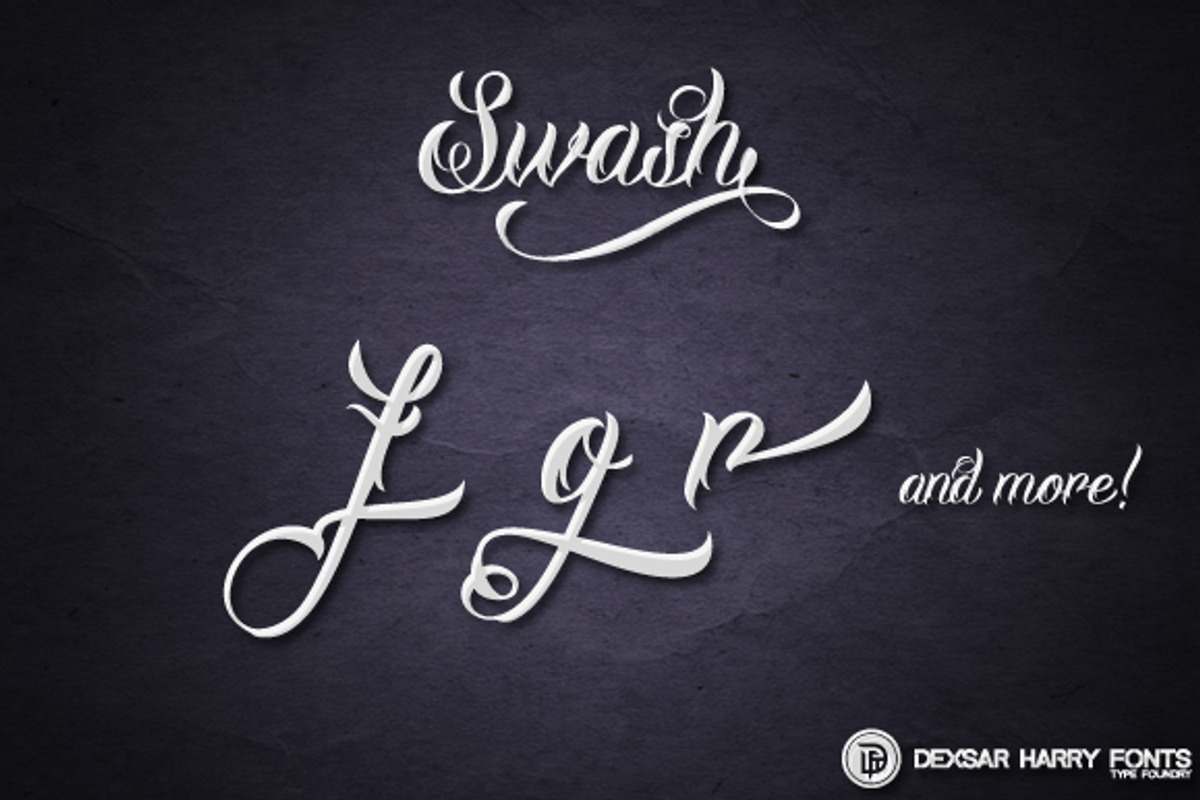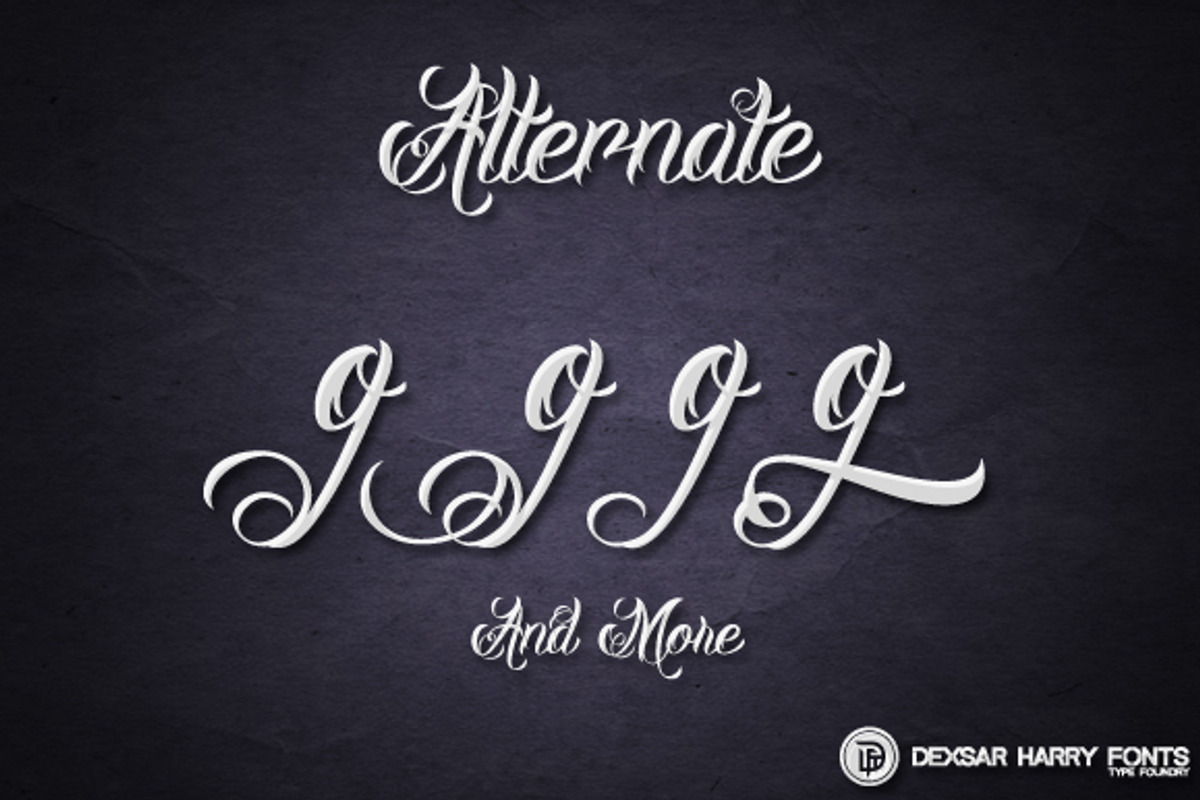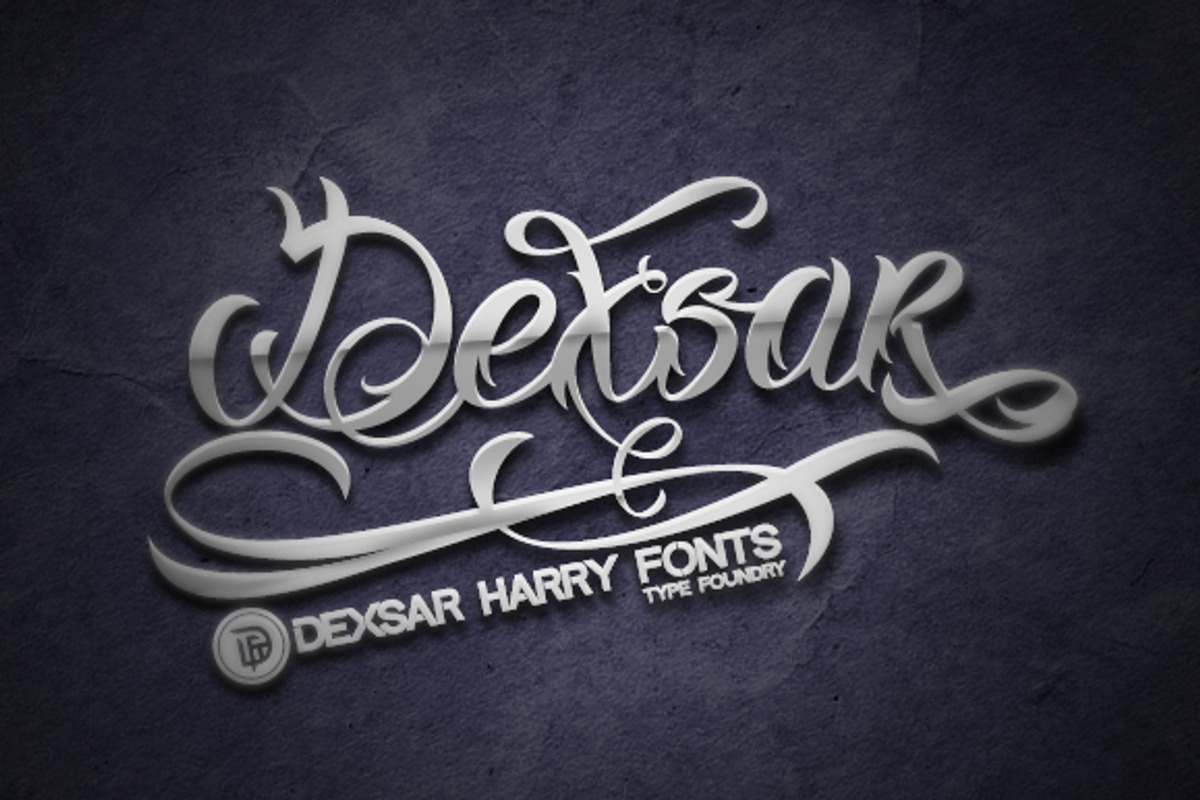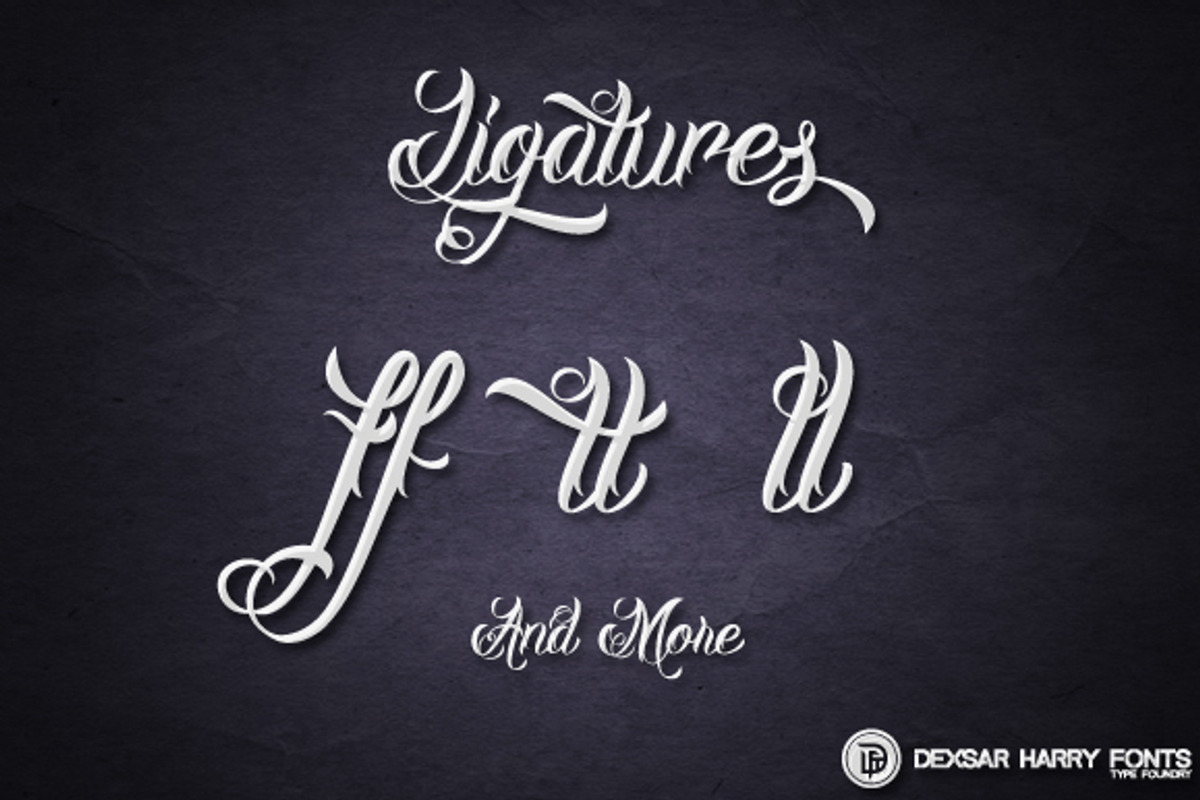
Milestone Script - Tattoo Font
Milestone Script - Tattoo Font by dexsarharryfonts is a font selected for branding, posters, packaging, typography.
- DHF Milestone Script is the script font with a lot of alternates character.
- This font have a lot OpenType feature: Contextual Alternate, Swash, Ligatures, Styllistic Alternate, Ordinals & Fraction.
Why Milestone Script - Tattoo Font is worth a look
Milestone Script - Tattoo Font by dexsarharryfonts fits naturally into Branding, posters, packaging, typography.